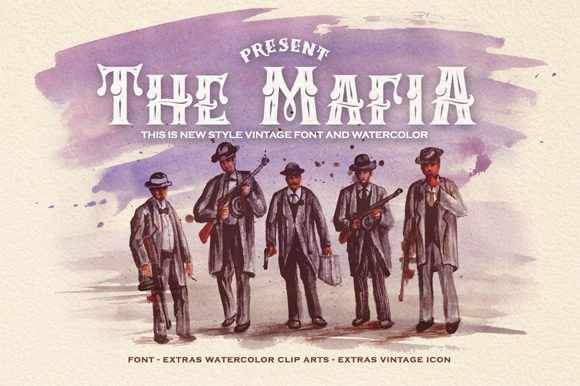
Mafia Font
The Mafia is a classic font which was inspired by old mafia movies and posters. Its handcrafted style will give your design an authentic and unique look.